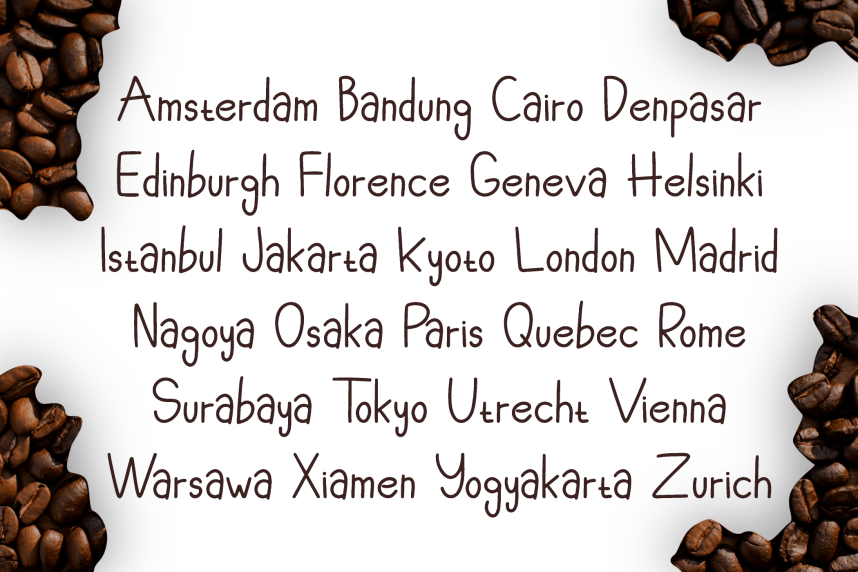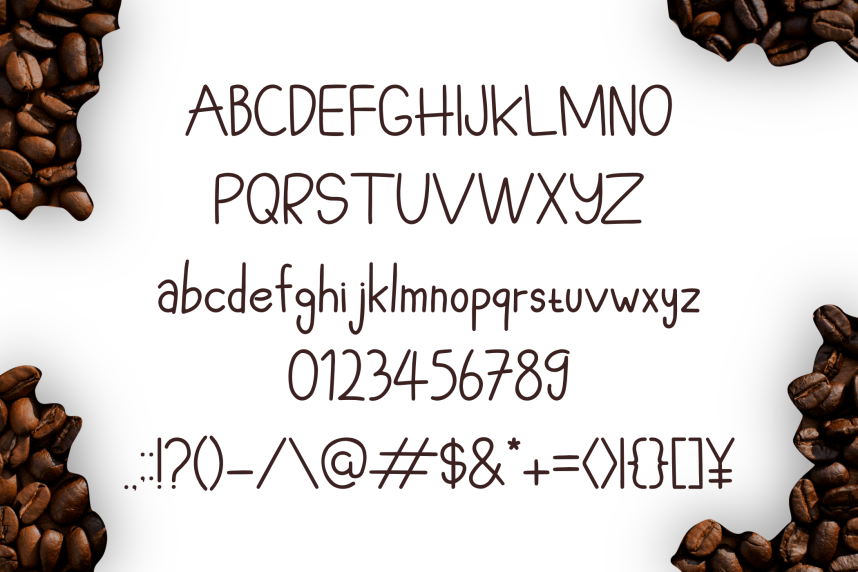
Coffee Shop Line Handwritten Font – A warm, handwritten-style font that brings a personal touch to cafe menus, coffee shop signage, and cup lettering. Its casual, friendly strokes make it perfect for brands that want to feel approachable and authentic.